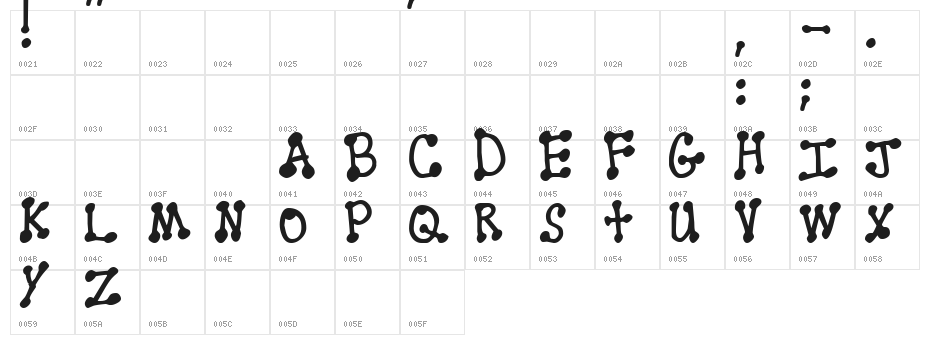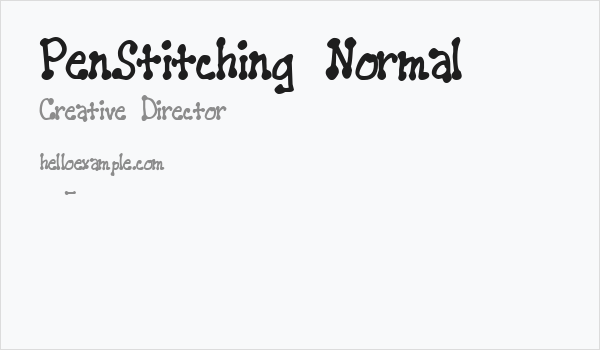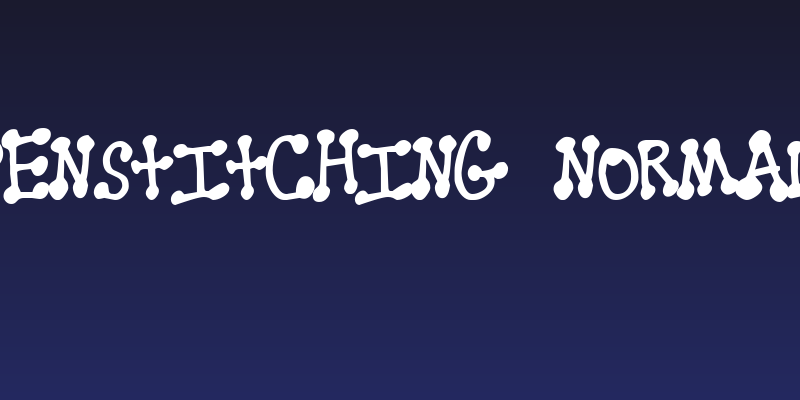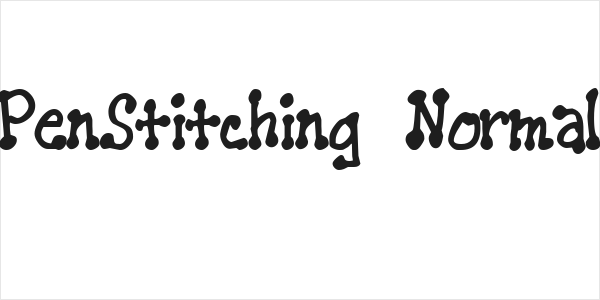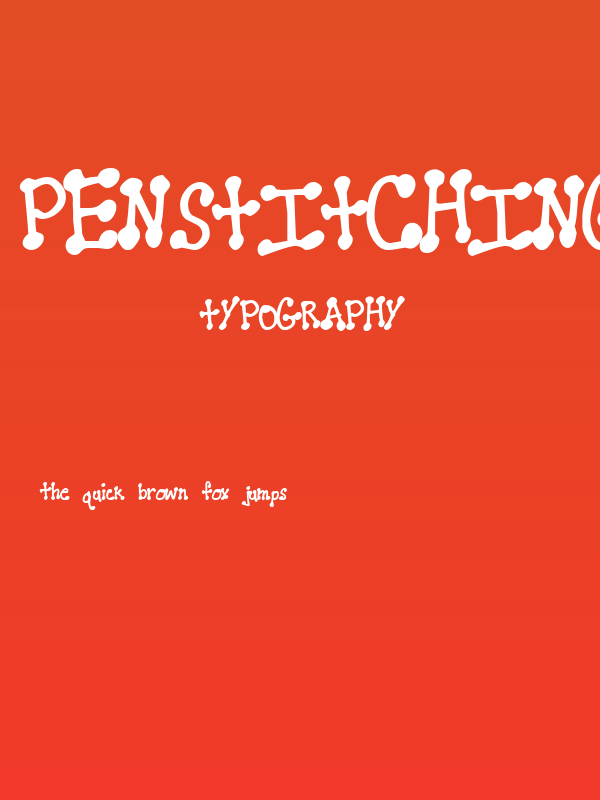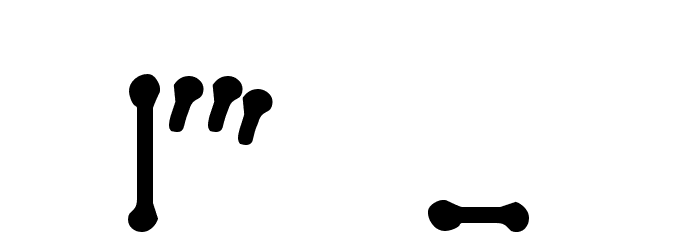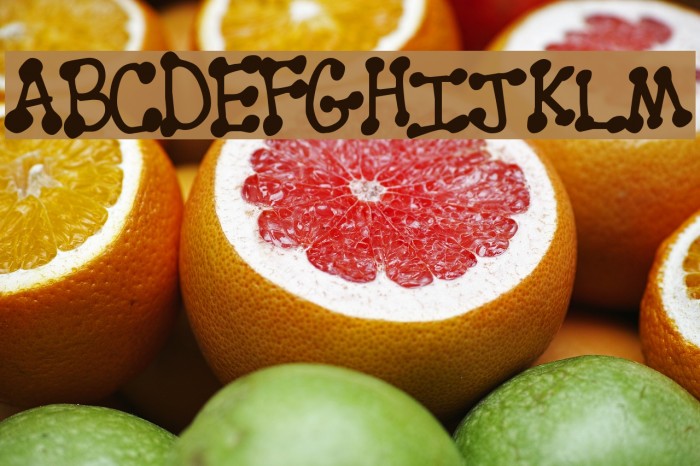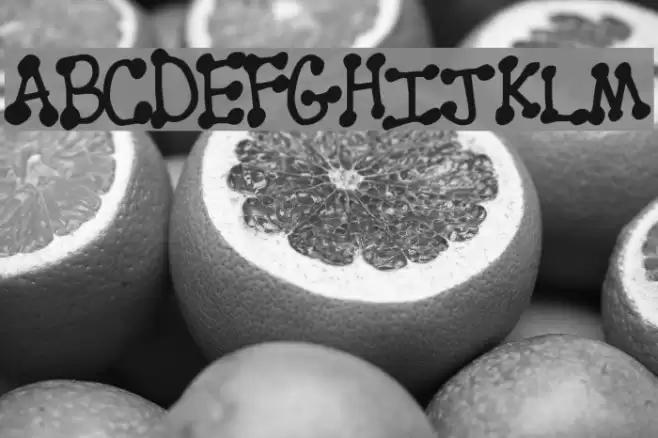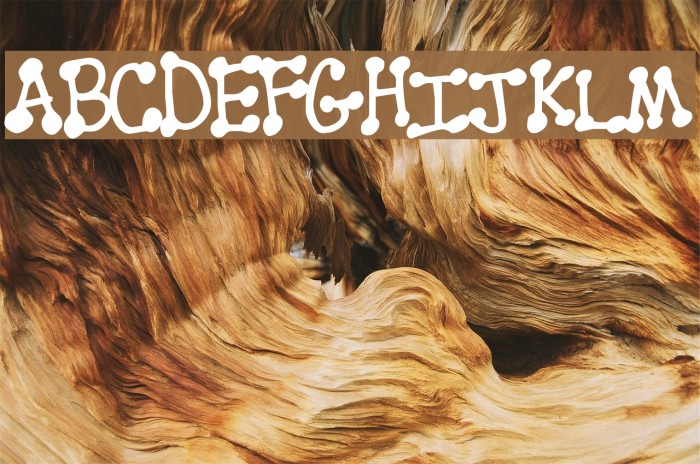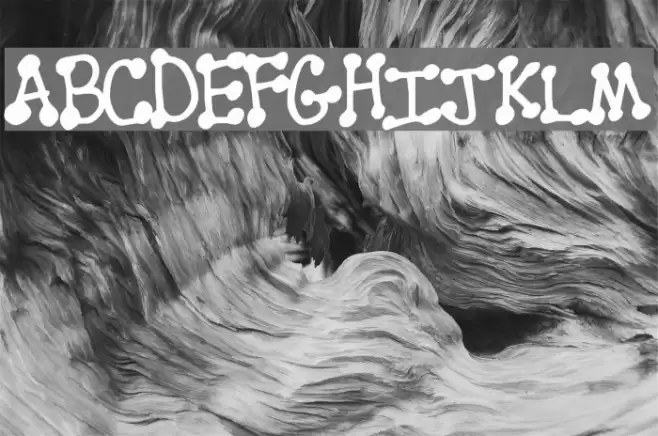
PenStitching Normal Font
PenStitching Normal Description
This font features a playful and whimsical design, characterized by its unique stitching effect. Each letter appears as if it has been stitched together with thread, creating a handcrafted look. The rounded edges and irregular shapes add to its charm, making it ideal for creative and artistic projects. The font maintains a consistent thickness throughout, with small dots at the intersections of strokes, enhancing its stitched appearance. It is both eye-catching and distinctive, perfect for adding a touch of personality to any design.
| Proposed Projects | Ideal for children's books, craft projects, DIY invitations, and playful branding. |